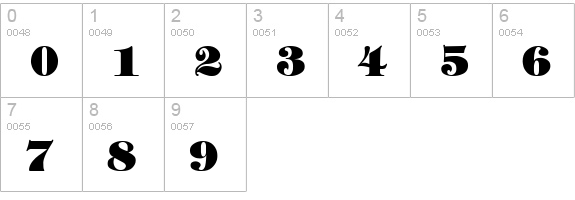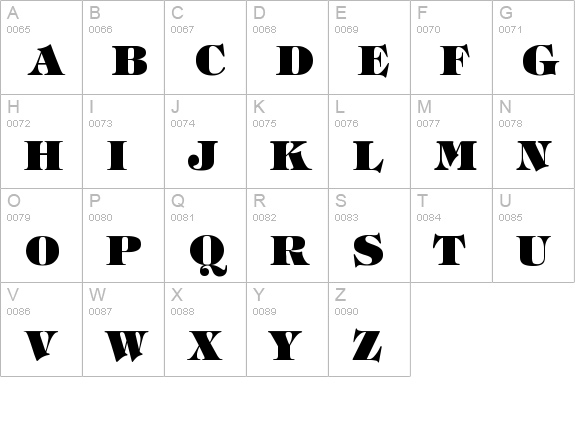
Tiffany-Heavy-Normal Font Details
Tiffany-Heavy-Normal is a heavy, high-impact variant in the Tiffany typeface family \xE2\x80\x94 well suited to high-impact headlines, posters, and display advertising.
Tiffany-Heavy-Normal font is a bold and powerful typeface that exudes elegance and sophistication. Its strong and thick strokes give it a commanding presence, making it perfect for headlines and attention-grabbing designs. This font is incredibly versatile, as it can be used for both formal and informal projects. Whether you're creating professional business documents, eye-catching posters, or stylish branding materials, Tiffany-Heavy-Normal font will add a touch of refinement and class to your work. One of the best features of Tiffany-Heavy-Normal font is that it is freely available to download at FontsMarket.com. This means that you can easily access this beautiful typeface without any cost. FontsMarket.com offers a wide range of high-quality fonts, and Tiffany-Heavy-Normal font is just one of the many amazing options that you can find on the site. With its timeless design and effortless elegance, Tiffany-Heavy-Normal font is sure to elevate your designs and make a lasting impression. Whether you're a professional designer or someone looking to add a touch of sophistication to their personal projects, this font is a must-have. Download Tiffany-Heavy-Normal font for free at FontsMarket.com and bring your creative visions to life with style and grace.